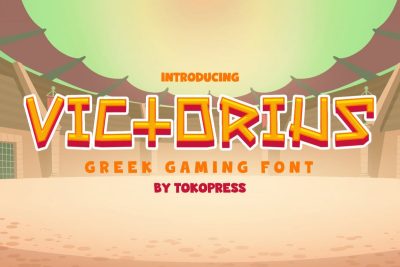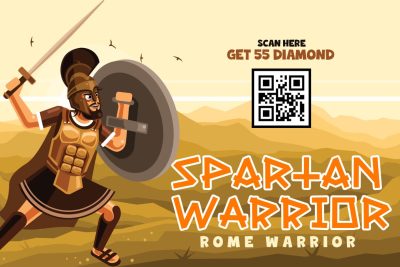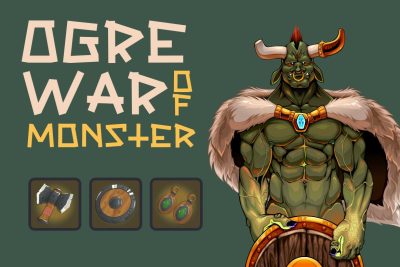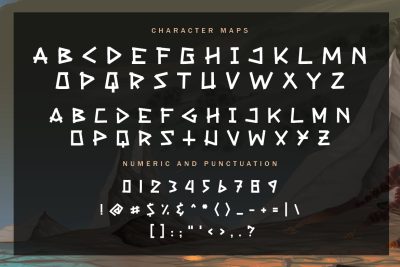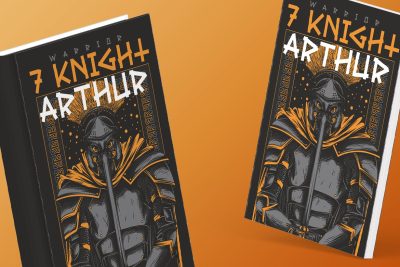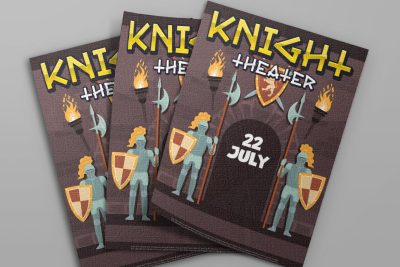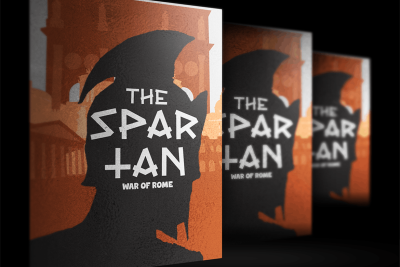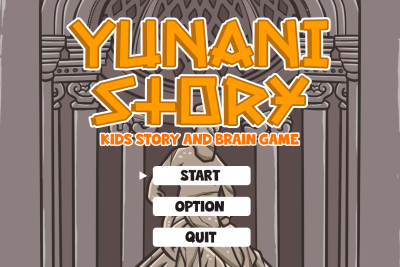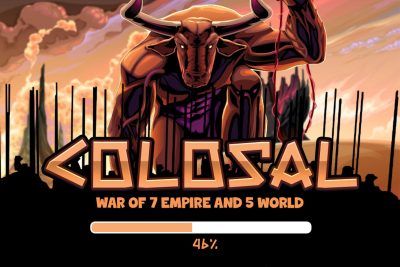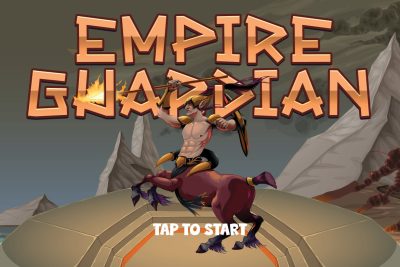
Gaming Font Victorius is the ultimate choice for game developers, designers, and creators seeking a Greek-inspired, adventurous look. With its dynamic design and sharp edges, this font creates a bold aesthetic that works perfectly for gaming titles, logos, and headers. Moreover, it captures the essence of strength, competition, and creativity, making it an excellent choice for eye-catching projects.
From action-packed game titles to interactive designs, Victorius enhances any creative vision. Not only does it ensure clarity, but it also delivers a unique style that remains legible even in fast-paced, visually intense designs. Furthermore, its bold strokes and balanced structure make it versatile and adaptable to various themes. Whether youโre designing for fantasy games, historical adventures, or mythological stories, this font aligns seamlessly with your vision.
Victorius brings more than just bold visualsโit evokes emotions of power and triumph. The Greek-inspired design reflects the epic tales of heroes and gods, giving your projects a timeless and legendary appeal. By incorporating Victorius, your designs will convey strength, determination, and an adventurous spirit.
Gaming Font Victorius Built for Gamers and Designers Alike
Created by Tokopress, Victorius merges Greek mythology with modern gaming culture. As a result, its intricate details and bold lines give it a unique personality that appeals to both gamers and designers. Therefore, this font is ideal for grabbing attention and elevating your creative projects to a new level.
Victorius seamlessly integrates into game interfaces, marketing materials, and banners. Additionally, it suits not only game titles but also merchandise branding, streaming visuals, and digital artwork. Its bold yet playful design ensures that it can adapt to various creative needs. For example, you can use it for title screens, in-game text, promotional posters, or even themed apparel.
Thanks to its versatility, Victorius becomes a valuable tool for projects requiring bold, stylish typography. Its structured layout ensures compatibility across digital and print platforms, making it an excellent choice for professional and casual creators alike. Moreover, the clean yet impactful design helps you stand out in a competitive gaming market.
With Gaming Font Victorius, your designs will radiate energy and sophistication. Above all, this font isnโt just a design elementโitโs a gateway to captivating storytelling and engaging visuals. Whether youโre creating a thrilling game, a bold advertisement, or a dynamic website, Victorius will help you leave a lasting impression.